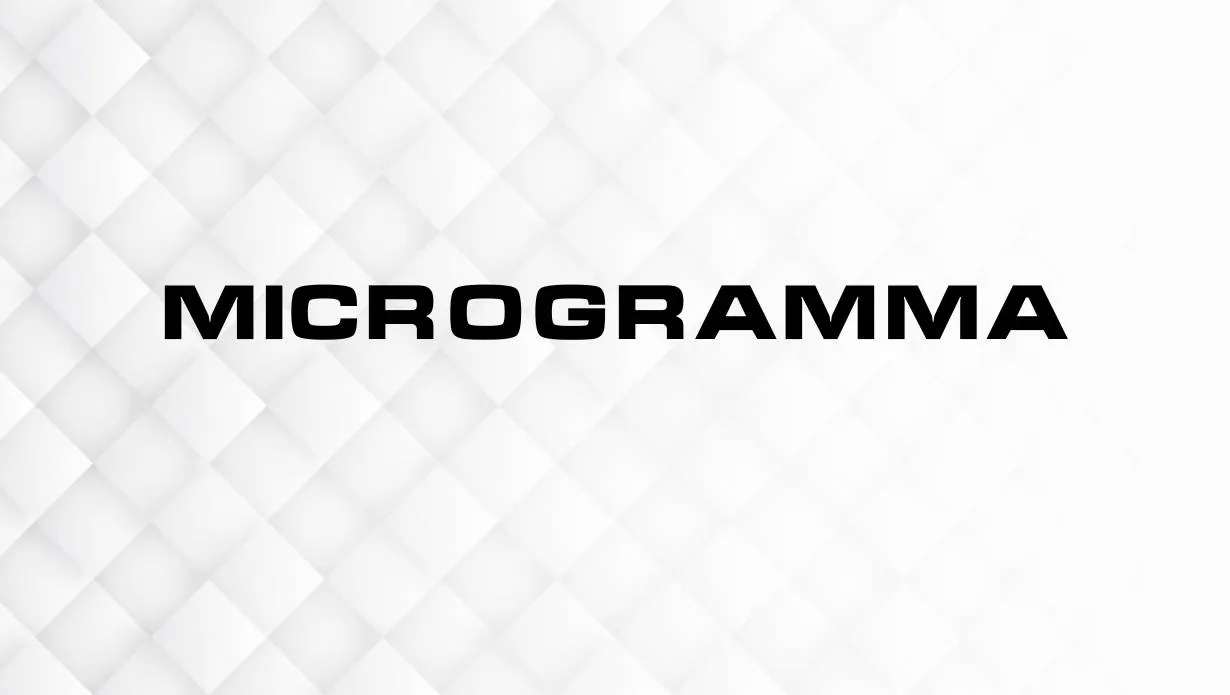
Microgramma Font: Microgramma Font is a typeface with a modern and technical design. It’s often used in tech-related design projects, web design, and digital interfaces. The font’s clean lines and geometric letterforms help convey a sense of innovation and efficiency in design work.